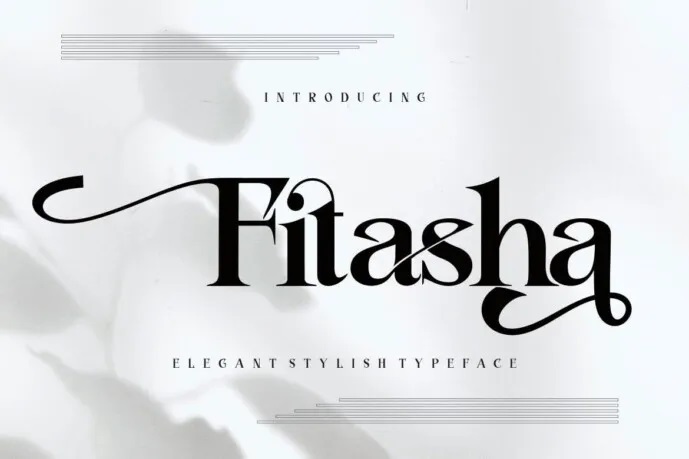
Fitasha Font
Fitasha is an Elegant Typeface Font is a unique and legit display font. This font is perfect for the branding projects like Logo, T-shirt printing, esports, etc. By doing so, they look outstanding in various different settings that may be required by one at any one time.
Fitasha Serif Font